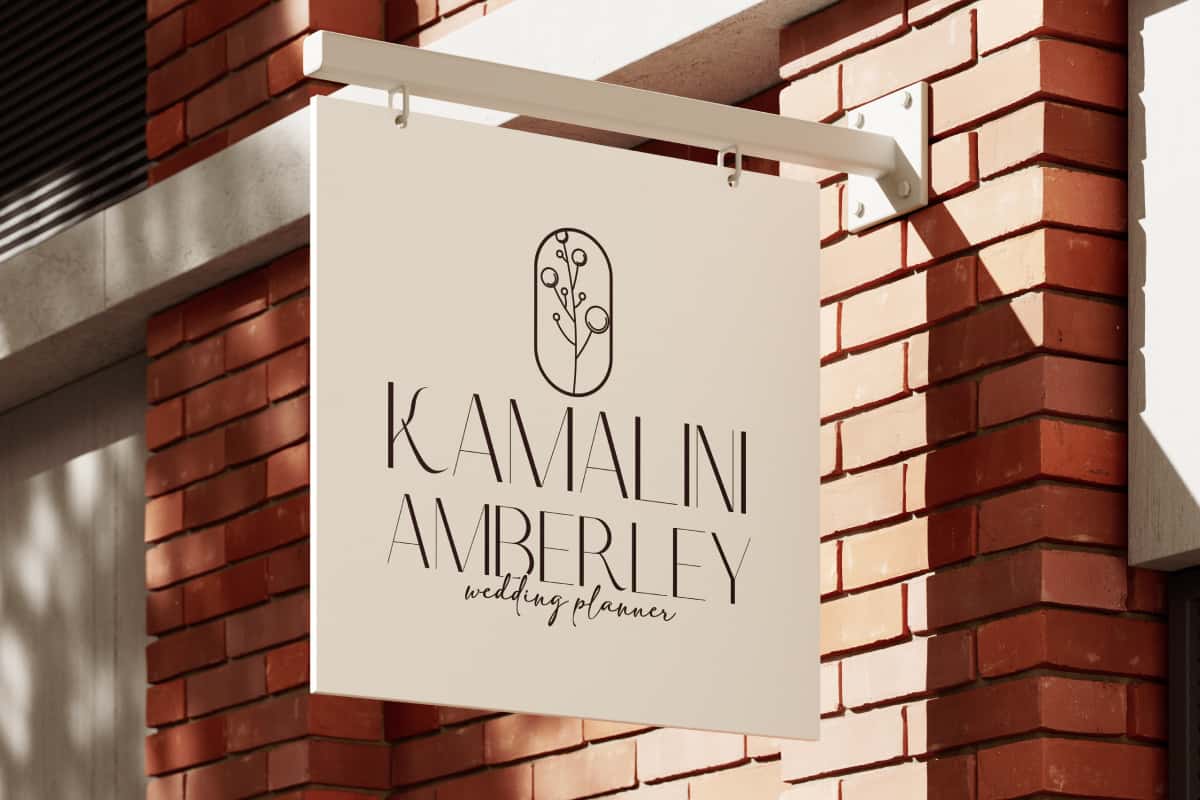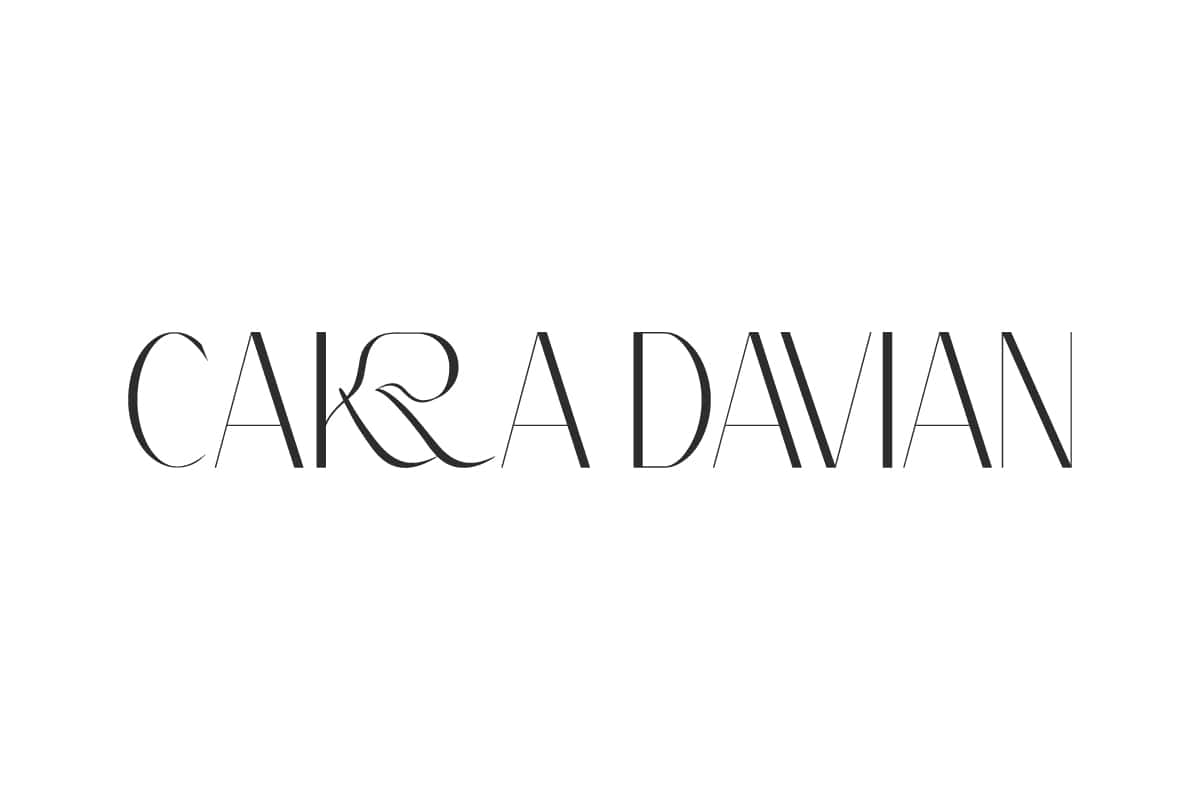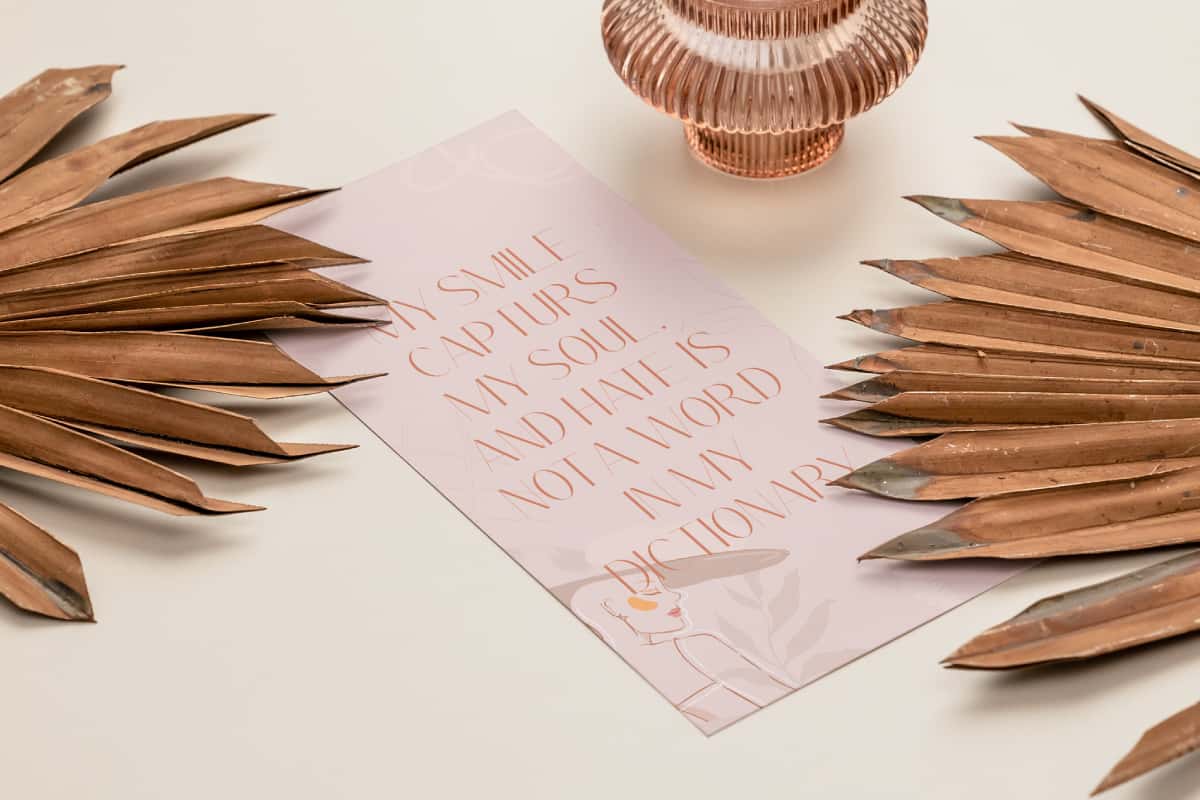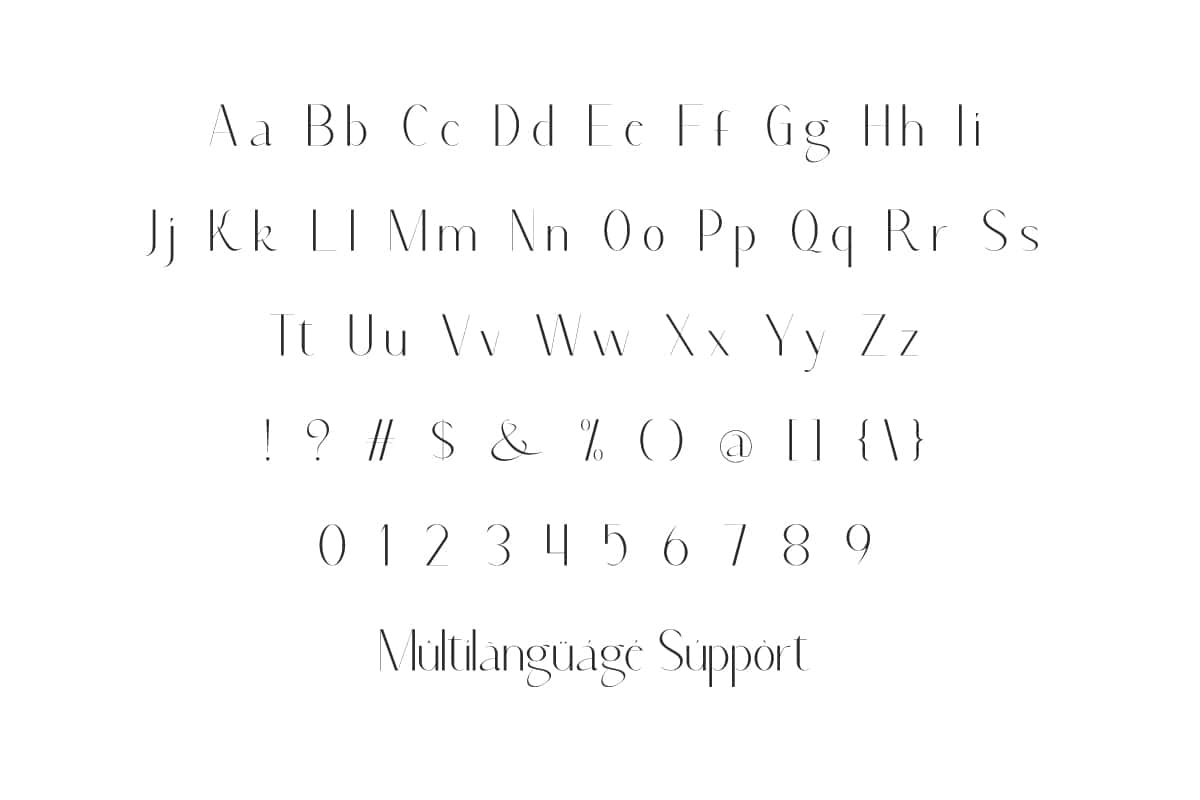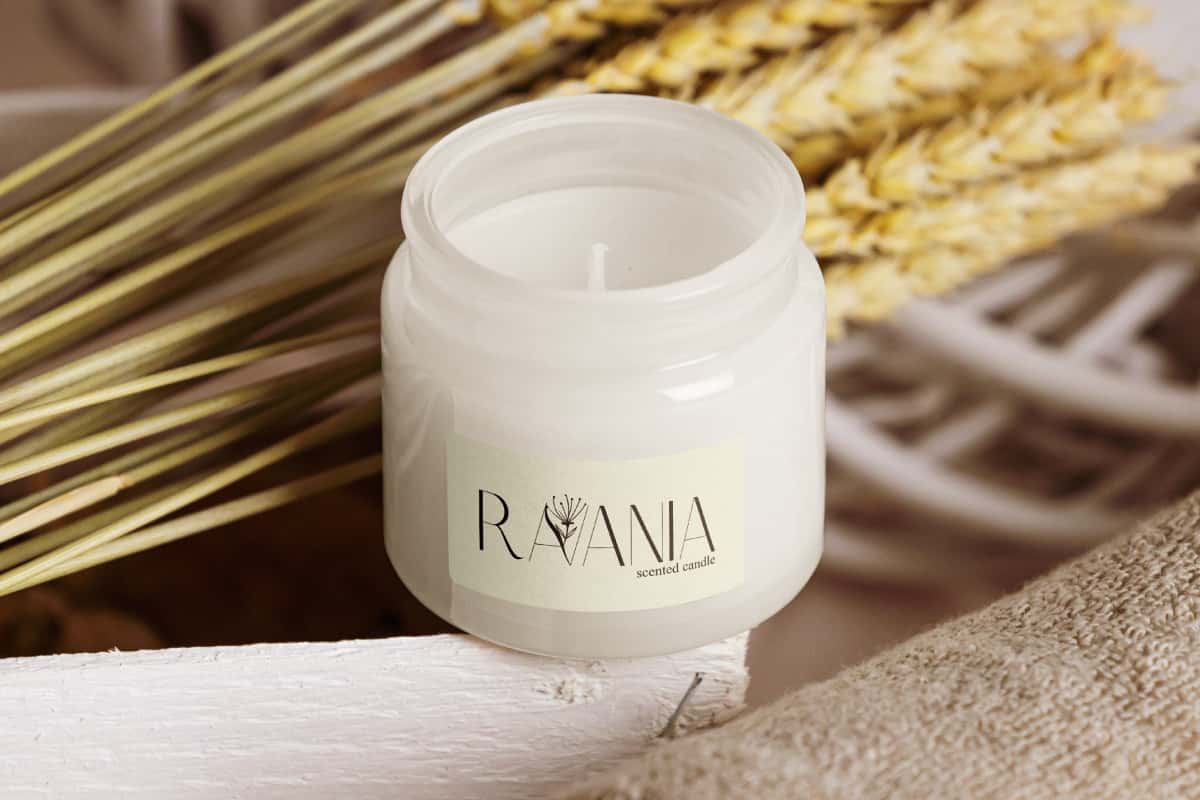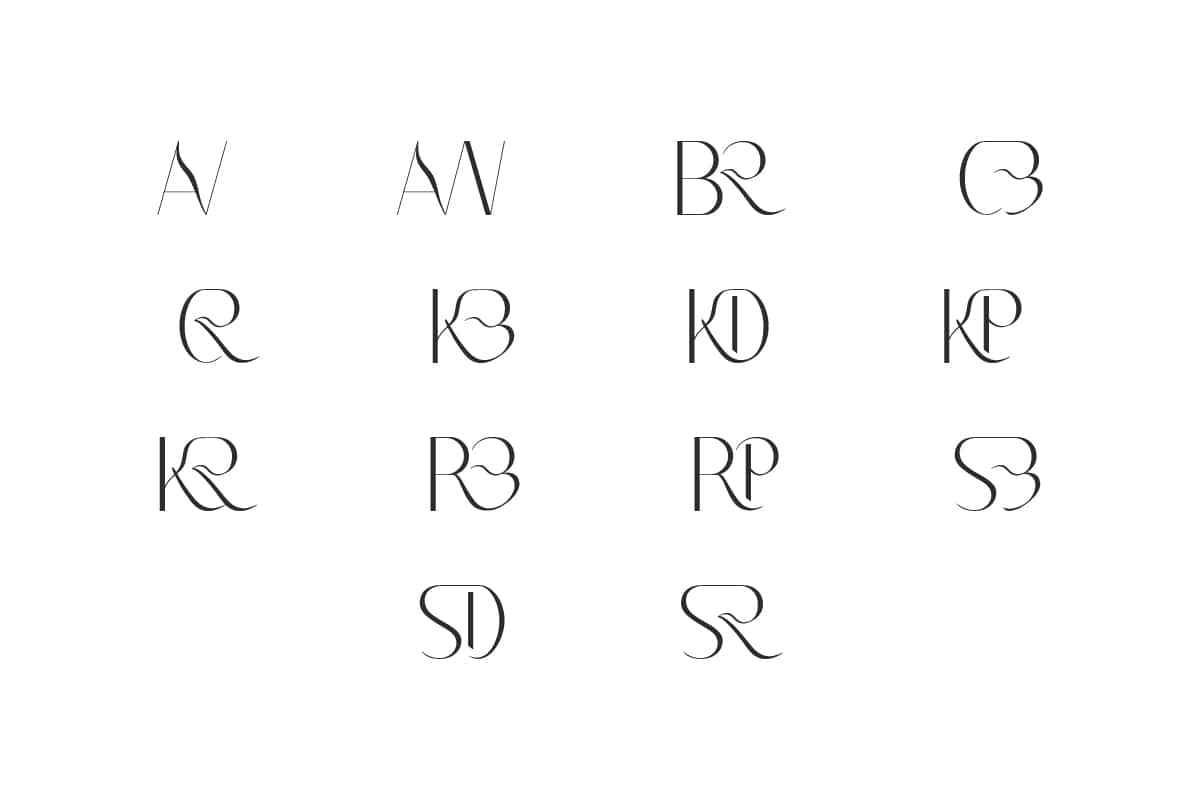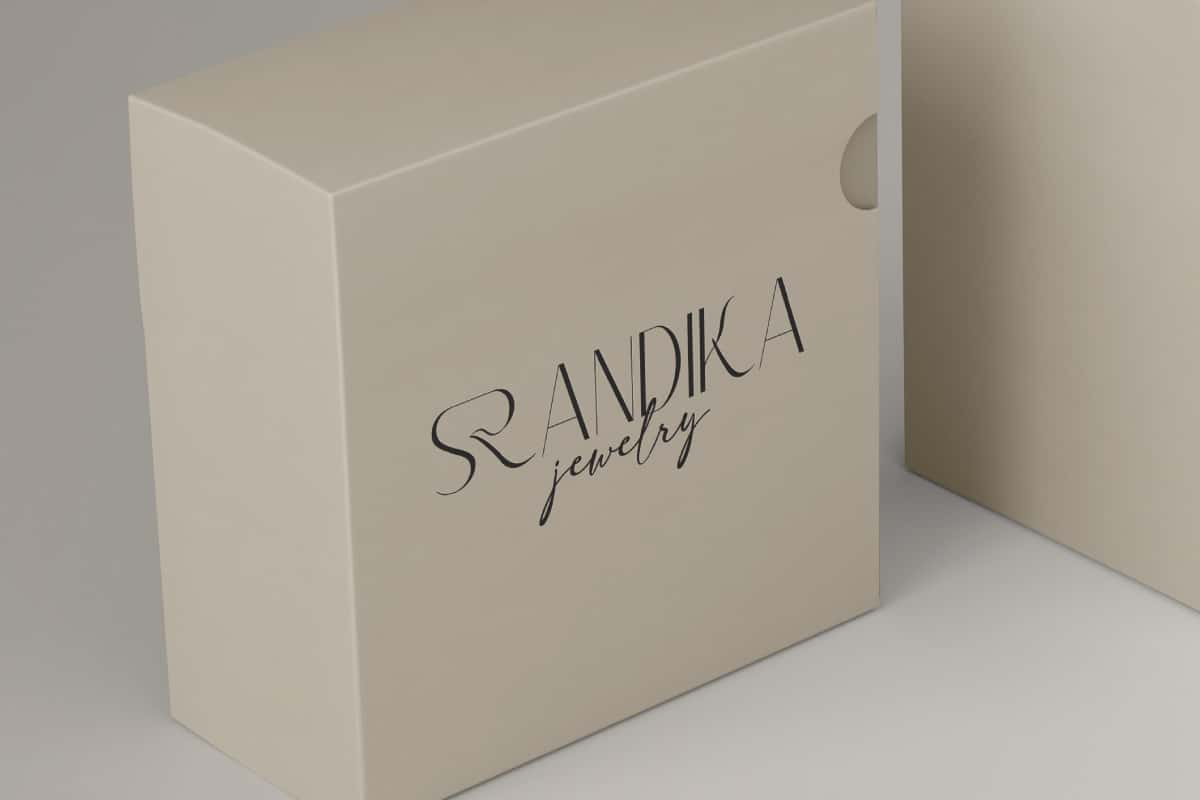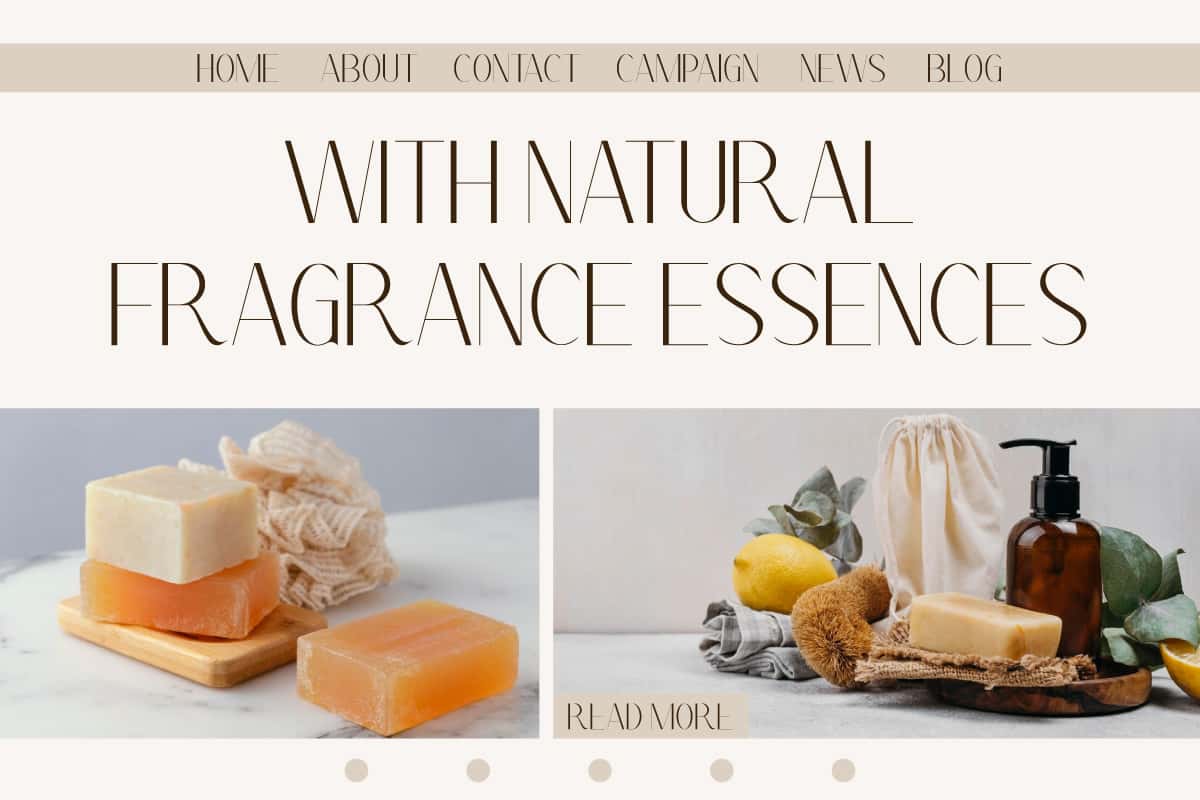
Cakra Davian Font
Cakra Davian Font is a sophisticated sans-serif font blending modern precision with artistic ligature flourishes, also clean-lined and contemporary.
Cakra Davian Font is a sophisticated sans-serif font that strikes the perfect balance modern and thin, but packed with elegant ligatures that give it extra charm and personality. Perfect for books, covers, invitation, label, logos, menu, mockup, packaging, quotes, social media, stationery, template, title, watermarks, website and etc.
Cakra Davian Font includes full set of Uppercase and Lowercase Basic Characters, Number, Punctuation, Symbol, and Ligature. It’s minimalist style has a quiet charm, but the details give it a lively, engaging look. Perfect for accessories and gift, apps, art galleries, authors, beauty brands, boutiques, cafés, entertainment, fashion, home decoration, and more.